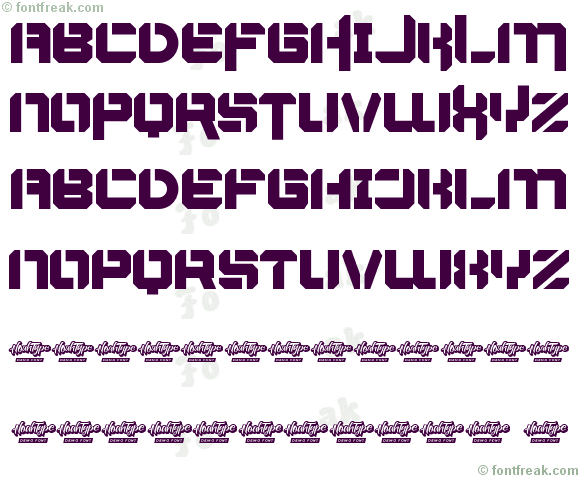
Thermal War Demo
About Thermal War Demo
The Thermal War Demo font by Noah Type is a striking display typeface that captures attention with its unique aesthetic. This font falls under the decorative category, characterized by bold, blocky letters that evoke a sense of strength and resilience. The stroke weight is consistently thick, providing a robust appearance, while the minimal contrast between thick and thin strokes enhances its legibility. The spacing is intentionally tight, creating a compact look that maximizes impact, making it ideal for headlines and titles.
Thermal War Demo is perfect for a variety of creative projects. It excels in use cases such as movie posters, where its dramatic style can convey action and intensity. It also works well for video game branding, giving a futuristic and edgy feel that appeals to gamers. Additionally, this font can elevate product packaging for brands targeting a younger demographic, or it can be used in promotional materials for events like music festivals, where bold visuals are key. Graphic designers and content creators looking to make a statement will find this font particularly appealing.